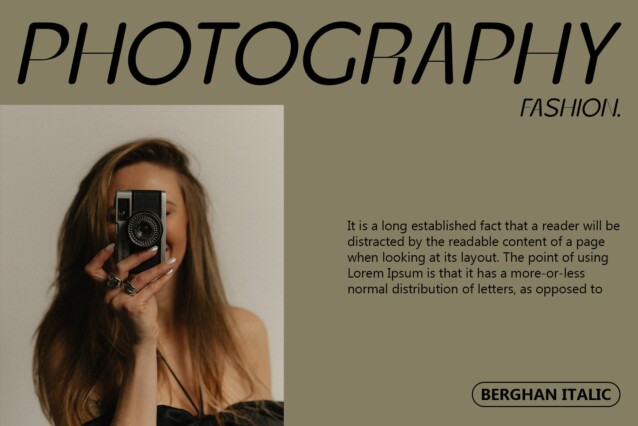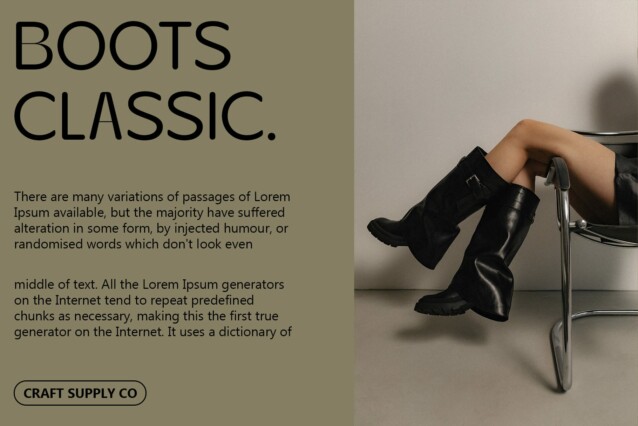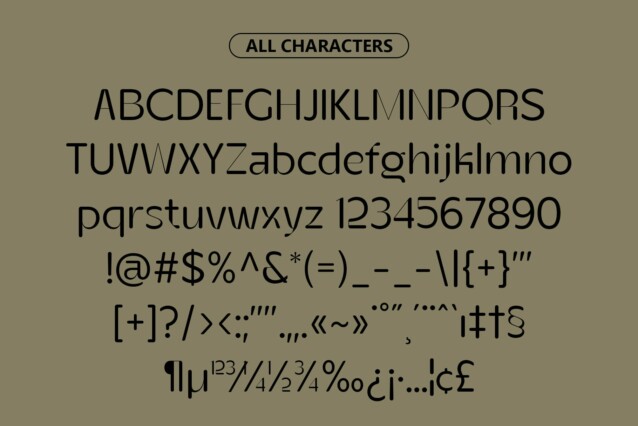
Berghan Rounded Font
Berghan Rounded Font is a sleek sans serif design with a contemporary flair. Its clean lines and rounded stem endings exude modernity and sophistication.
High Contrast for Impact With its high contrast between thick and thin strokes, This font commands attention and makes a bold statement in any design project. The contrast adds visual interest and captivates the viewer’s eye.